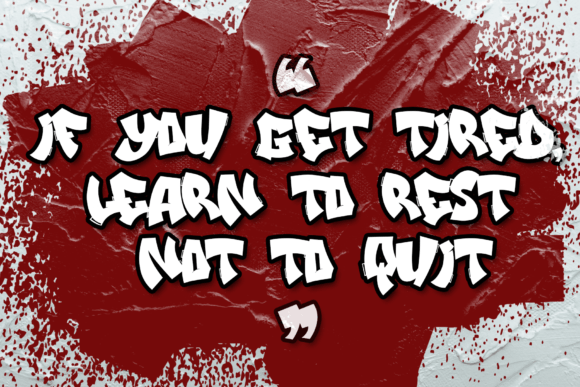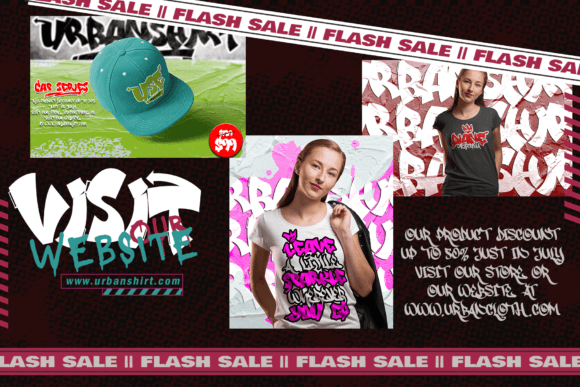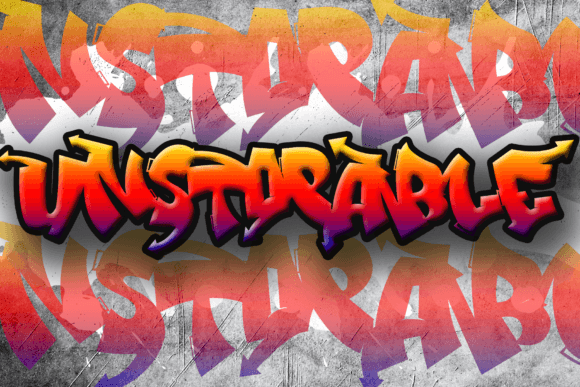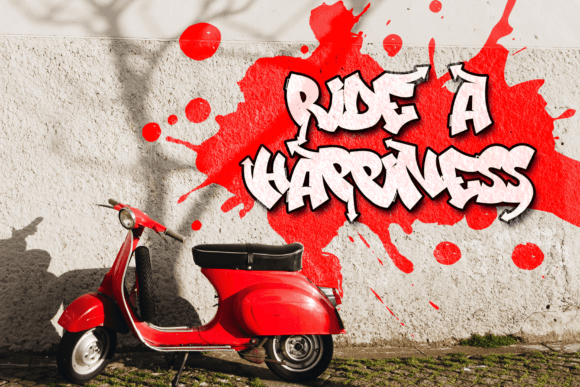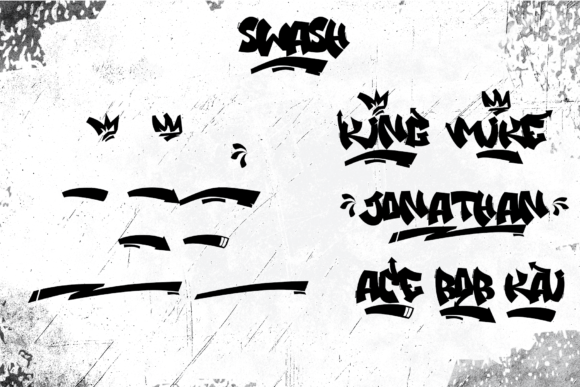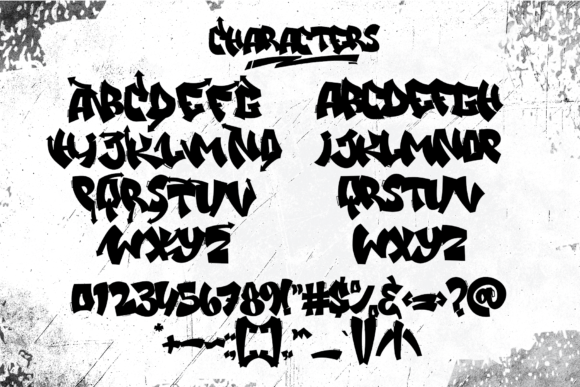
Introducing Donkey Sign Font: Elevate Your Designs with Graffiti Style
Are you looking for a font that can add a touch of edginess and creativity to your designs? Look no further than the Donkey Sign Font, a spectacular display font made in Graffiti style with a decorative sign. This font is perfect for designers and crafters who want to take their designs to the next level and make them stand out from the crowd.
What is Donkey Sign Font?
Donkey Sign Font is a unique and eye-catching font that is inspired by the Graffiti style. It features a decorative sign that adds a touch of personality to any design. The font is perfect for creating bold and eye-catching headings, logos, and titles that will grab the attention of your audience.
Features of Donkey Sign Font
- Graffiti Style: Donkey Sign Font is made in Graffiti style, which gives it a unique and edgy look.
- Decorative Sign: The font features a decorative sign that adds a touch of personality to any design.
- Versatile: Donkey Sign Font is perfect for a wide range of design projects, including branding, headings, wedding designs, invitations, signatures, logotype, wall art illustration, apparel, labels, and much more.
- Easily Customizable: The font is easily customizable, allowing you to adjust the size, color, and style to fit your design needs.
Uses of Donkey Sign Font
Donkey Sign Font is a versatile font that can be used for a wide range of design projects. Here are some of the ways you can use this font:
- Branding: Use Donkey Sign Font to create bold and eye-catching logos and titles that will help your brand stand out.
- Wedding Designs: Add a touch of personality to your wedding designs, including invitations, signs, and decorations.
- Headings and Titles: Use Donkey Sign Font to create bold and eye-catching headings and titles for your blog posts, articles, and social media posts.
- Apparel and Merchandise: Create unique and eye-catching apparel and merchandise, including t-shirts, mugs, and tote bags.
- Wall Art Illustration: Use Donkey Sign Font to create stunning wall art illustrations that will add a touch of personality to any room.
Benefits of Using Donkey Sign Font
Here are some of the benefits of using Donkey Sign Font:
- Unique and Eye-Catching: Donkey Sign Font is a unique and eye-catching font that will help your designs stand out from the crowd.
- Versatile: The font is perfect for a wide range of design projects, making it a great addition to your font library.
- Easily Customizable: The font is easily customizable, allowing you to adjust the size, color, and style to fit your design needs.
- High-Quality: Donkey Sign Font is a high-quality font that is designed to produce crisp and clear results.
In conclusion, Donkey Sign Font is a spectacular display font made in Graffiti style with a decorative sign. It is perfect for designers and crafters who want to add a touch of edginess and creativity to their designs. With its versatility, ease of customization, and high-quality design, Donkey Sign Font is a great addition to any font library.
Here are some tips and tricks for using Donkey Sign Font:
- Experiment with Different Colors: Donkey Sign Font looks great in bold and bright colors. Experiment with different colors to find the one that works best for your design.
- Use it with Other Fonts: Donkey Sign Font pairs well with other fonts. Experiment with different font combinations to find the one that works best for your design.
- Adjust the Size and Style: Adjust the size and style of Donkey Sign Font to fit your design needs.